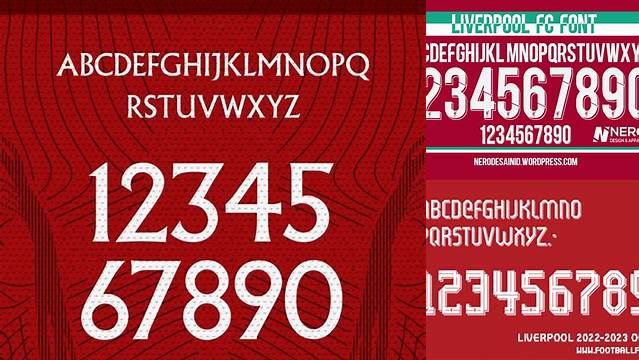
Liverpool Font: Free Downloads & How To Use It
Hey guys! Are you a massive Liverpool FC fan? Do you want to give your designs that authentic Reds feel? Well, you've come to the right place! In this article, we're diving deep into the world of the Liverpool font, where to find it for free download, and how to use it to create stunning visuals. We'll cover everything from official fonts to inspired creations, so you can show your support in style. Let's get started!
What is the Liverpool Font?
So, what exactly is the Liverpool font? It's not just one single font, but rather a family of typefaces that evoke the spirit of Liverpool Football Club. Think bold, strong, and instantly recognizable. The fonts used in official Liverpool FC branding, merchandise, and even player jerseys, all contribute to the overall aesthetic. These fonts aren't always freely available for commercial use, but there are plenty of fan-made and inspired options out there that capture the essence. Finding the perfect Liverpool font involves understanding what you want to achieve with your design. Are you aiming for an exact replica of the official typeface? Or are you simply looking for a font that feels like it belongs in the Liverpool universe? Knowing your goal will help you navigate the various options and choose the best Liverpool font for your needs.
Where to Find Official Liverpool Fonts
Finding the official fonts used by Liverpool FC can be a bit tricky. Often, these fonts are proprietary and licensed, meaning they aren't available for free download for commercial use. However, sometimes you can find them as part of official branding packages or through licensed vendors. The official Liverpool font used on jerseys, for example, is often a custom design that's exclusive to the club. You might be able to purchase licensing rights for specific projects, but this can be quite expensive. Another avenue to explore is contacting Liverpool FC directly or checking their official merchandise partners. They might have specific guidelines on font usage or offer font files for approved projects. If you're a designer working on a project that requires official branding, this is definitely the route to take. Otherwise, the next sections will cover some fantastic free alternatives and inspired fonts that capture the Liverpool spirit perfectly!
Free Alternatives to the Official Liverpool Font
Okay, so getting your hands on the official Liverpool font might not always be easy. But fear not, fellow Reds! There's a fantastic world of free alternatives out there that capture the same vibe. These fonts might not be exactly the same, but they're close enough and perfect for personal projects, fan creations, and even some commercial uses (always double-check the license!). When searching for free Liverpool font alternatives, keep an eye out for typefaces that are bold, sans-serif, and have a slightly sporty feel. Fonts with strong, clean lines often work well. Websites like DaFont, FontSpace, and Google Fonts are treasure troves of free fonts. Try searching for keywords like "sport font," "bold sans-serif," or even "football font" to find options that fit the bill. Remember to always read the font license carefully to understand the usage restrictions. Most free fonts are okay for personal use, but commercial use might require a donation or a different license. Don't let that discourage you though – there are tons of amazing options available!
Liverpool-Inspired Fonts: What to Look For
When you're on the hunt for Liverpool-inspired fonts, you're not necessarily looking for an exact copy of the official typeface. Instead, you're seeking fonts that evoke the same feeling and aesthetic. Think about what makes the Liverpool font visually striking. It's usually bold, powerful, and has a sense of tradition. Fonts with a slightly condensed or blocky appearance often work well. Pay attention to the details. Are the letters sharp and angular, or more rounded and friendly? Does the font have a slight italic slant, suggesting speed and motion? These subtle cues can make a big difference in capturing the Liverpool spirit. Consider the overall mood you want to create. A strong, assertive font might be perfect for headlines and banners, while a slightly more relaxed font could work well for body text. By understanding the visual language of the Liverpool font, you can choose inspired fonts that perfectly complement your designs.
Using the Liverpool Font in Photoshop
Using the Liverpool Font in Illustrator
Conclusion: Your Ultimate Guide to Liverpool Fonts
So there you have it, guys! Your ultimate guide to the Liverpool font, from finding free downloads to using it in your designs and understanding the legal stuff. We've covered everything from official fonts to inspired creations, and hopefully, you're now ready to create some amazing Liverpool-themed designs! Remember to always check font licenses, be creative, and most importantly, have fun showing your support for the Reds. Whether you're designing a t-shirt, creating social media graphics, or just adding a touch of Liverpool flair to your documents, the Liverpool font is a powerful tool. Now go forth and create some YNWA magic! And remember, this isn't just about fonts; it's about passion, community, and the love of the game. So let your creativity shine and show the world your Liverpool pride! You'll Never Walk Alone!